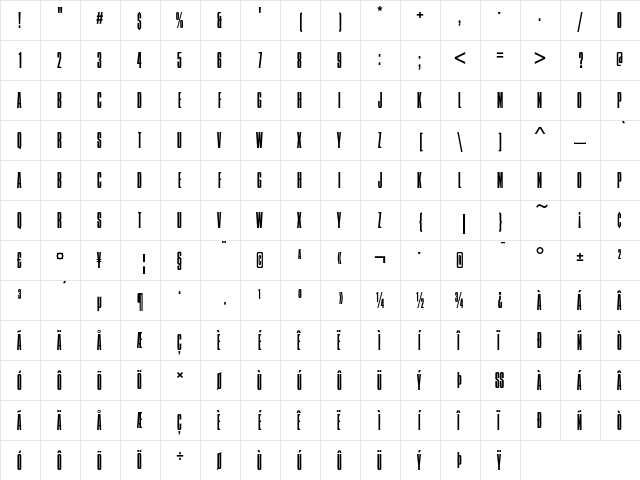
Compacta LT Std LightCm Font Preview
| Foundry | Linotype GmbH |
| Designer | Fred Lambert |
Design Context for Compacta LT Std Typeface
Compacta LT Std offers clean, dependable letterforms without strong stylistic allegiance, making it a practical choice for designers who need flexibility. Its slender proportions lend an understated elegance to any composition. The condensed width makes it efficient for tight spaces without sacrificing legibility.